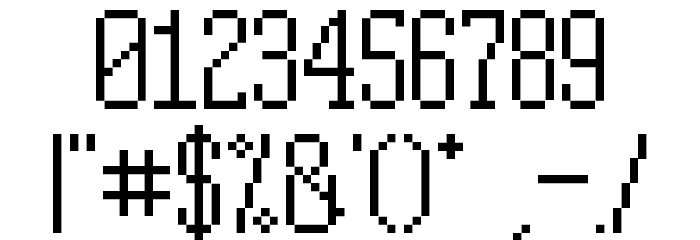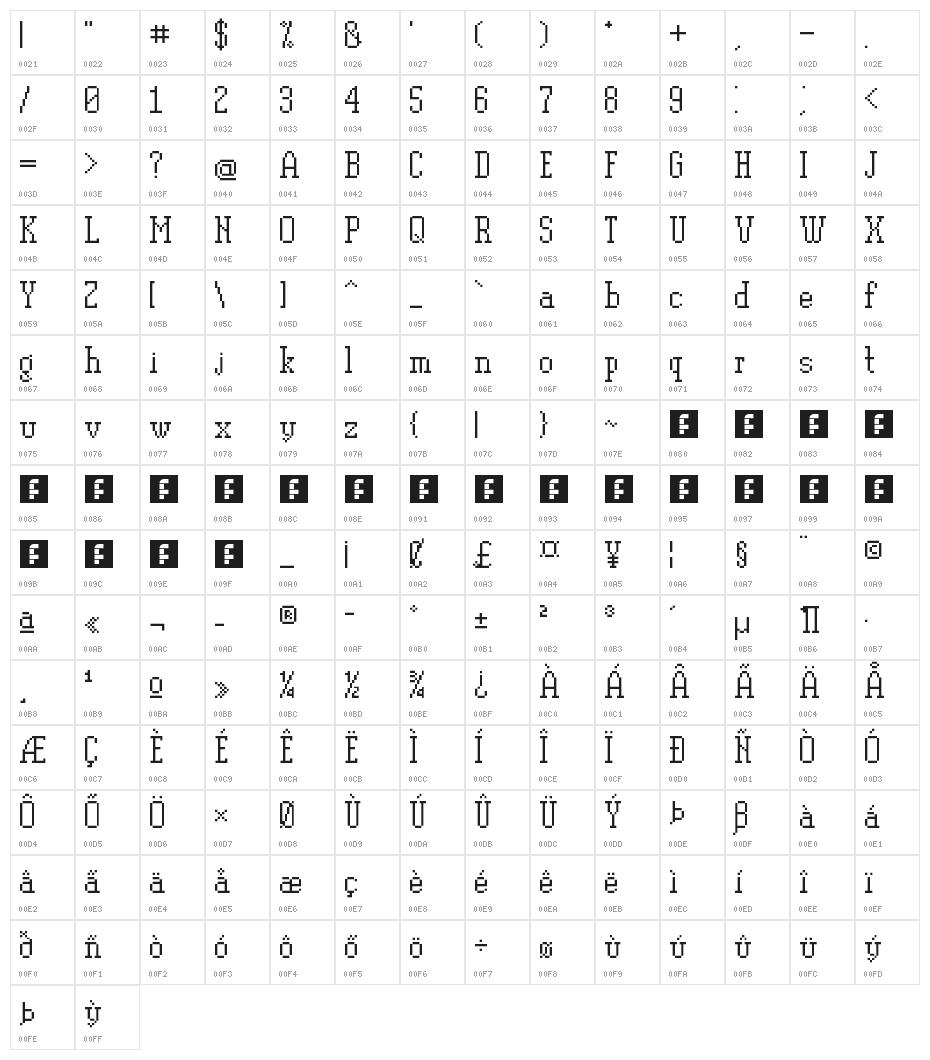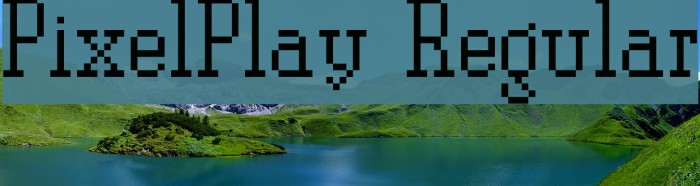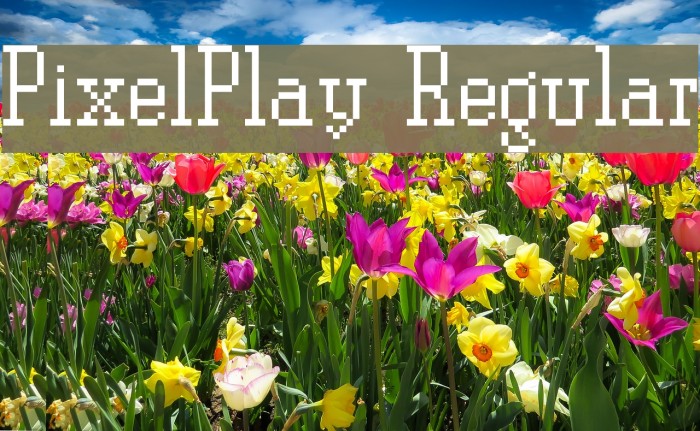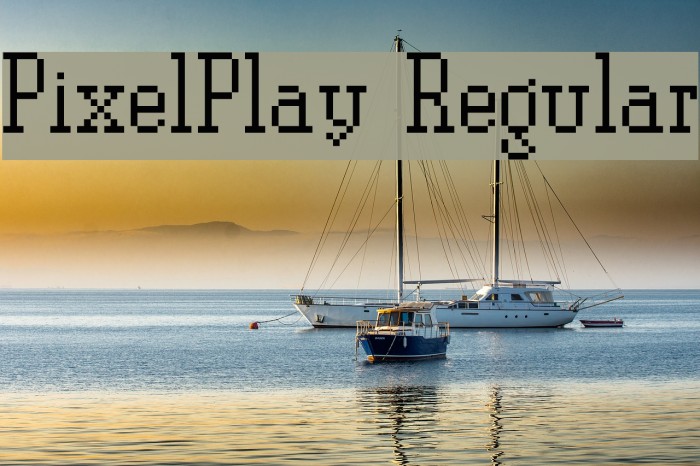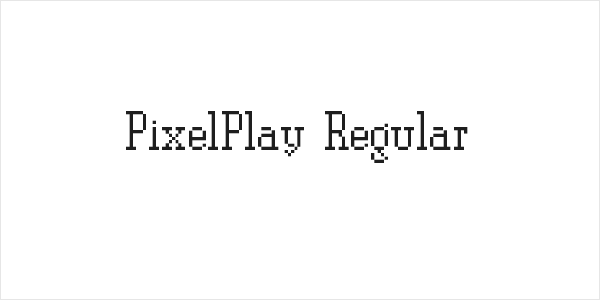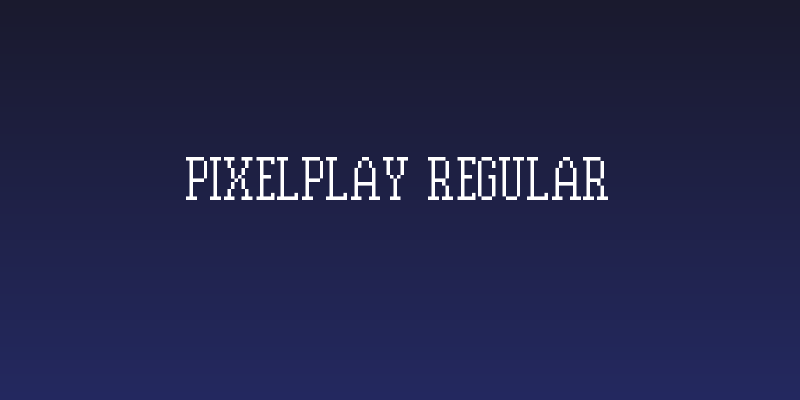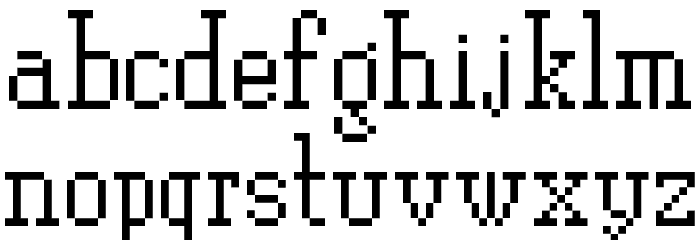
PixelPlay Regular Font
PixelPlay Regular Description
This font features a distinct pixelated style reminiscent of early digital displays and retro video games. Each character is constructed with a grid-like precision, giving it a blocky and geometric appearance. The uppercase and lowercase letters maintain a consistent height, while the numerals and special characters follow the same pixelated theme. The overall aesthetic is nostalgic, evoking a sense of classic arcade games and 8-bit graphics. The font's simplicity and uniformity make it highly legible, even at smaller sizes, while its unique style adds a playful and vintage charm.
| Use Case | Logos, Headlines, Digital Art |
| Proposed Projects | Ideal for retro-themed designs, video game graphics, digital art projects, and any creative work that seeks to capture the essence of classic arcade aesthetics. |